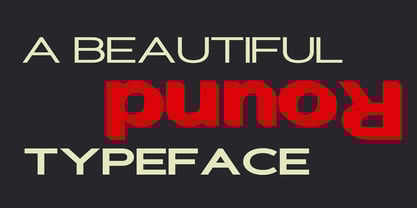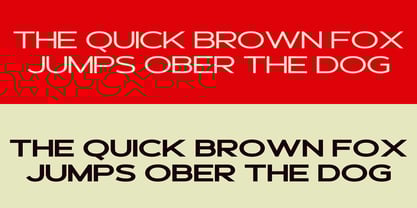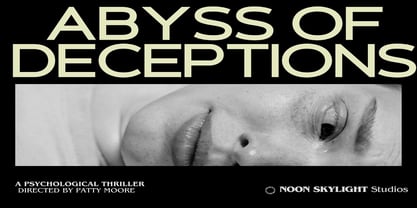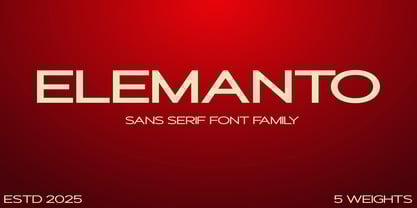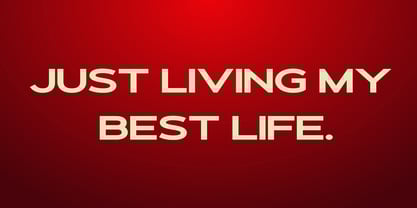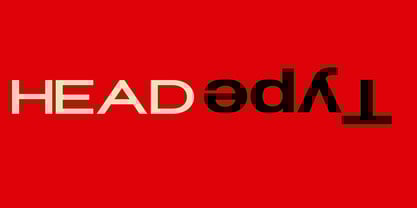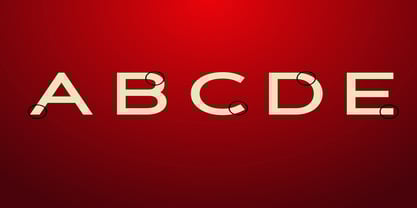
Elemanto
by Dream Font
The Elemanto Font Family was designed by Kanna Aoki and published by Dream Font. Elemanto contains 5 styles and family package options. More about this family
Elemanto is a simple and neat sans serif font. This beautiful and professional typeface is suitable for posters, headlines, block letters, subheadings, logo designs, branding and so much more.
We create Elemanto typeface to use in multipurpose projects such as on websites, systems, printing, embedding, servers, screens, displays, digital ads, branding, logos, titles, headlines, teks, and everything else.
Designers: Kanna Aoki
Foundry: Dream Font